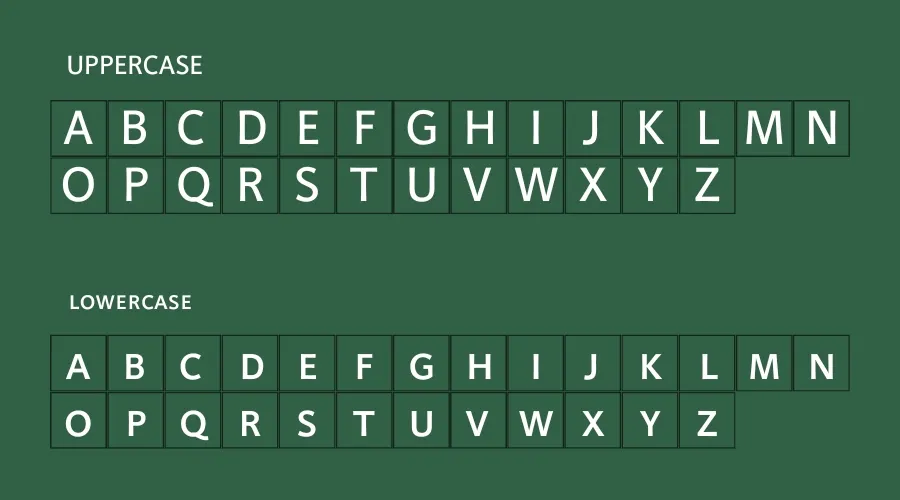
About Linotype Projeckt Small Caps Font
The Linotype Projeckt Small Caps Font is under the category of the sans serif texture family with a unique and clean texture look appearance for visitors. The subfamily of this typeface is regular and created by a well-known graphic designer known as the name of Andreas Koch.
This font can easily combine with arial font and create new modern designs. It gained so much popularity after it was published in the font world, due to its versatility of many features, and neat texture look. It supports many international languages such as Mandarin, Hindi, Spanish, French, Arabic, Bangla/Bengali, Russian, and English.